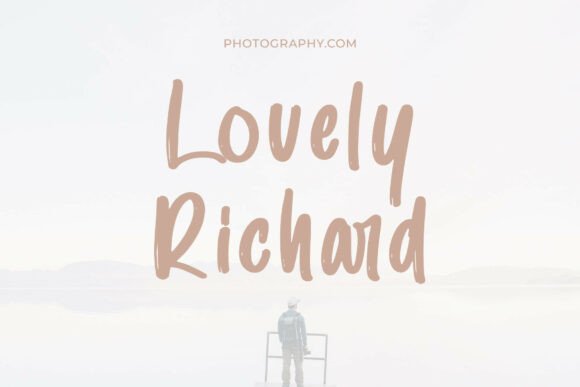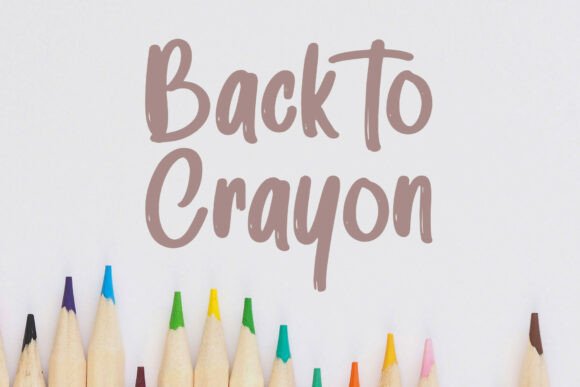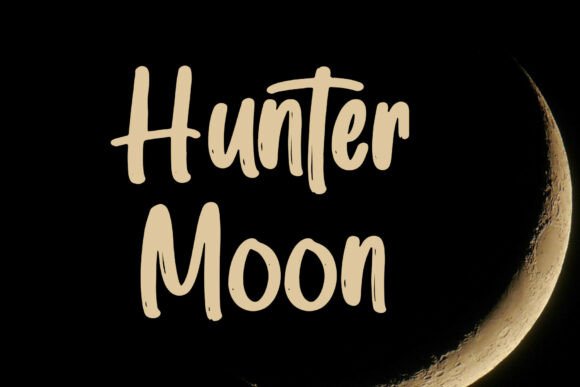
Introduction to Hard Lighter Font
Do you ever find yourself rummaging through a dusty attic or a thrift store, unearthing a vintage sign or an old typewriter that sparks your creativity? That’s exactly what the Hard Lighter Font feels like – a refreshing blast from the past that brings a touch of nostalgia to your designs. This charming script font is a game-changer for designers looking to add a unique, handmade touch to their projects.
As a valuable design resource, the Hard Lighter Font offers high-quality visuals that can elevate any creative project. With its organic stroke flow, uneven baseline, and rough ink texture, it’s perfect for designers who want to create a sense of authenticity and character in their work. Whether you’re working on a retro logo, handcrafted label, or apparel design, this font is sure to captivate your audience and leave a lasting impression.
Key Features of Hard Lighter Font
- High-quality font design ideal for creative projects requiring a bold and modern aesthetic.
- Transparent background, allowing for seamless integration with various design elements and backgrounds.
- Unique characteristics include a striking, high-contrast design and a range of font weights, making it versatile for various design purposes.
Honest Review: Hard Lighter Font
As a designer, I’m always on the lookout for high-quality fonts that can elevate my creative projects. The Hard Lighter Font caught my eye, and I was excited to try it out.
One thing that immediately stood out to me is the transparent background of this font. It’s a game-changer for designers who want to create visually appealing designs with a subtle touch of elegance. ✨ The font’s sleek and modern design makes it perfect for use in a variety of creative projects, from logos to brochures.
Here are some of the key features of the Hard Lighter Font:
- High-quality design with a transparent background
- Perfect for use in creative projects, such as logos, brochures, and websites
However, I did notice a few limitations with this font. For example:
- The font may not be as versatile as some other fonts on the market
- The transparent background can sometimes make it difficult to read, especially in low-light environments
⚠️
The Hard Lighter Font is a high-quality design resource that can add a touch of elegance to any creative project. With its unique style and transparent background, it’s perfect for designers looking for a versatile and stylish font.
The Hard Lighter Font is perfect for:
- Business cards and marketing materials
- Photography and design portfolios